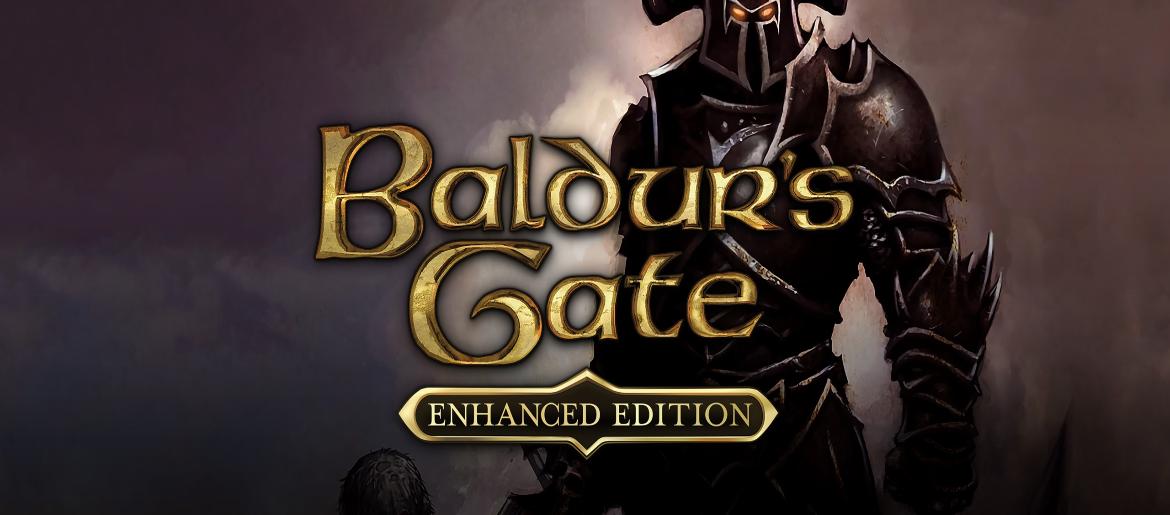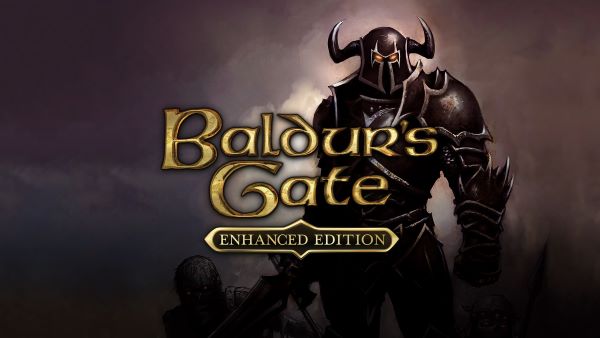
Baldur’s Gate Font
Baldur's Gate font
What is The Baldur’s Gate Font?
The Baldur’s Gate Font is a custom-designed logo style used in the series’ titles, box art, and promotional materials. It is a fantasy serif display font with sharp edges, medieval details, and dramatic letterforms, giving the franchise a dark, epic, and heroic visual identity.
The official Baldur’s Gate logo font is not publicly available, but a very close free alternative called Sherwood can be downloaded and used for fantasy posters, fan art, and game-inspired designs. Sherwood captures the same medieval tone and bold fantasy feel as the original lettering.
About Baldur’s Gate
Baldur’s Gate is a fantasy role-playing game series that began in 1998 and is based on the Dungeons & Dragons universe. Developed originally by BioWare, the franchise is known for its deep storytelling, rich characters, and complex choices. It became a cornerstone of modern RPGs and gained new popularity with recent releases. Its dark fantasy typography and logo design help reinforce the world’s mystery, danger, and epic scale across games and promotional artwork.